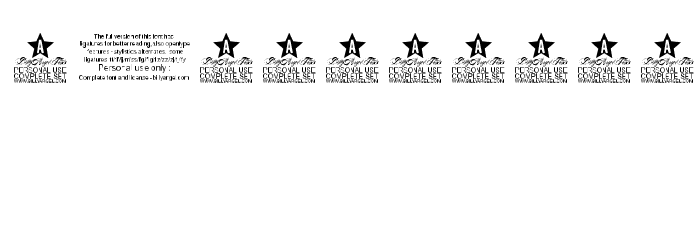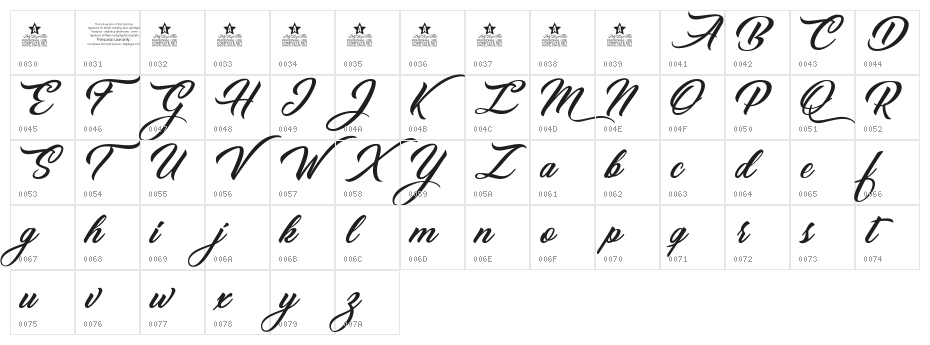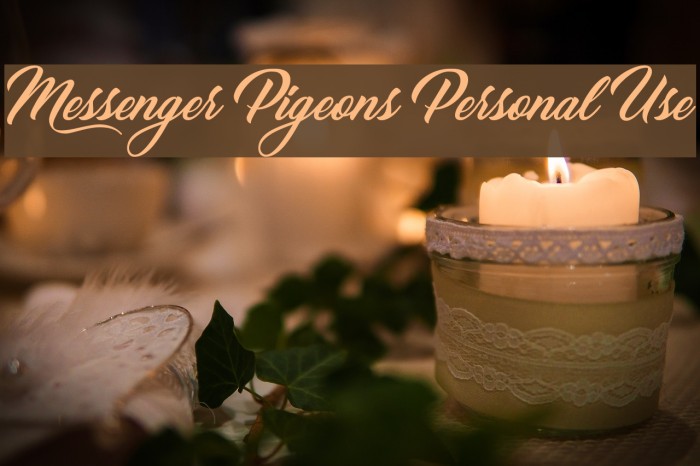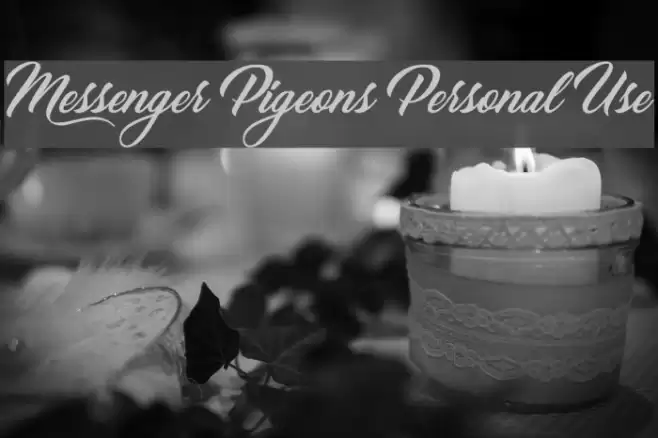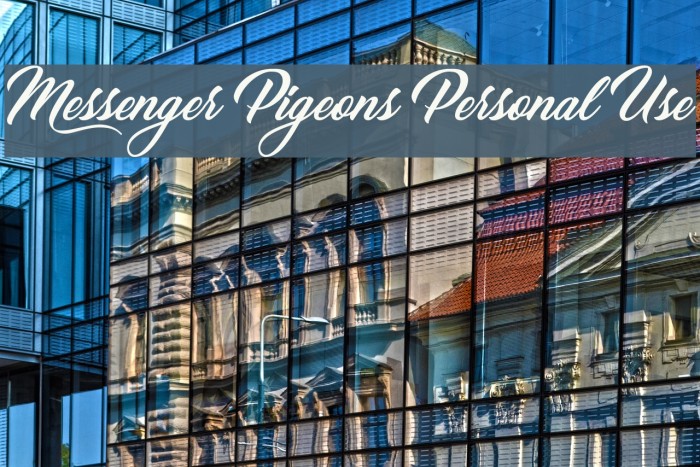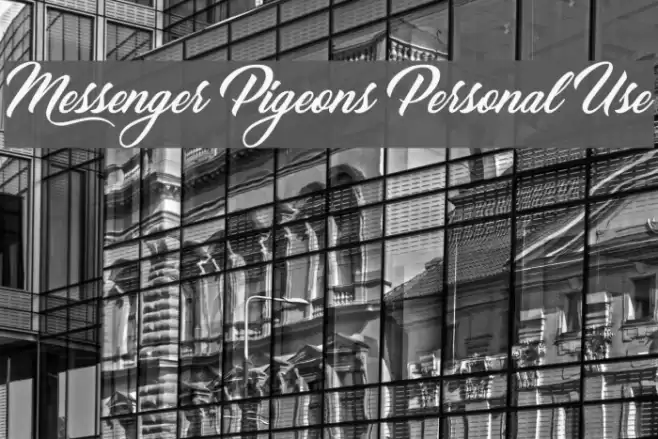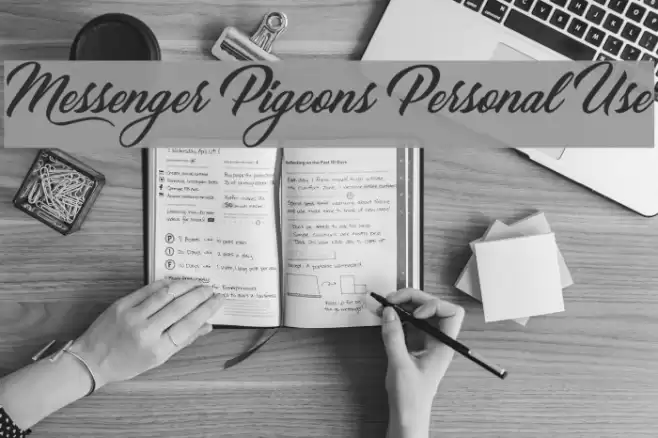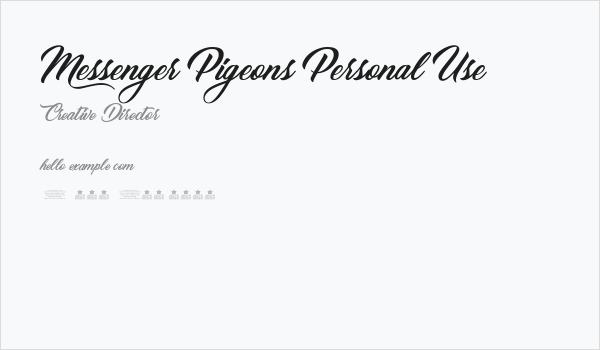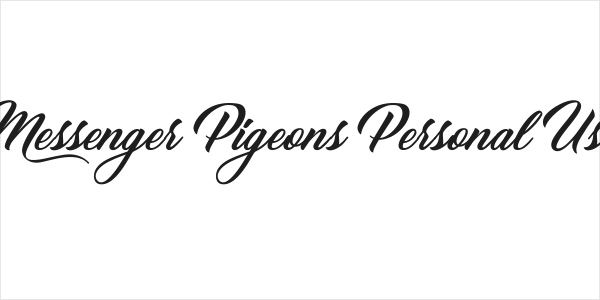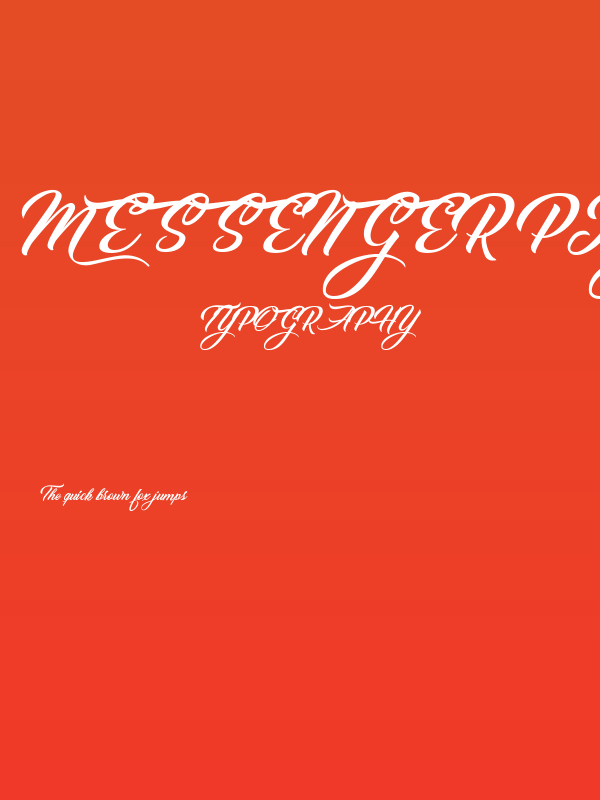
Messenger Pigeons Personal Use Font
Messenger Pigeons Personal Use Description
This font features an elegant and flowing script style, reminiscent of classic calligraphy. The characters are intricately designed with smooth curves and flourishes, giving it a sophisticated and artistic appearance. The uppercase letters are particularly ornate, with extended strokes and loops that add a touch of grandeur. The lowercase letters maintain a consistent flow, enhancing readability while preserving the decorative nature. This font is ideal for projects that require a touch of elegance and formality, such as wedding invitations, certificates, or branding materials. Its unique style makes it stand out, offering a blend of tradition and creativity.
Overall StyleClassic
Use CaseHeadlines, Invitations, Branding
Proposed ProjectsIdeal for wedding invitations, formal event programs, elegant branding, and artistic projects.